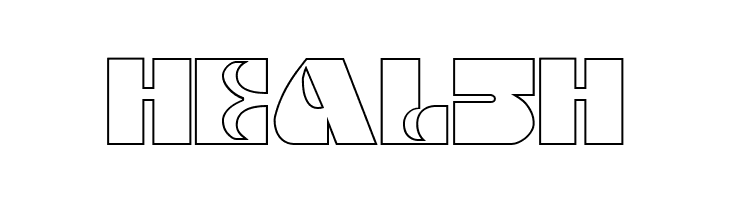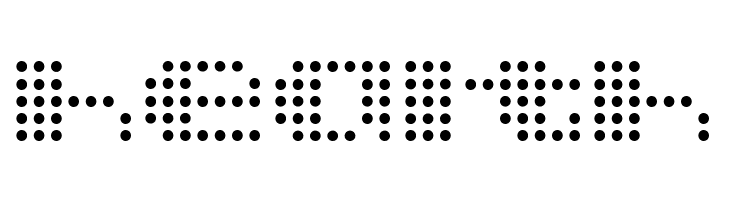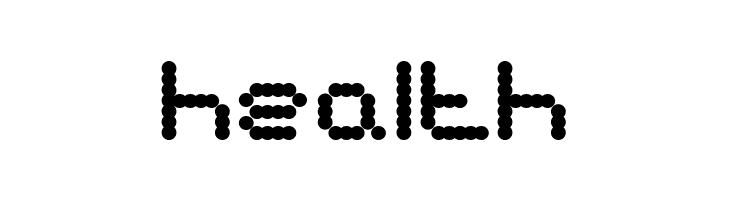
A bold pictogram dingbat font featuring diverse icons and symbols.
A display font featuring bird illustrations as characters.
Intricate vintage illustrations of people and scenes.
A pictogram font featuring animal and insect silhouettes for each character.
Hand-drawn, doodle-style font with playful illustrations.
A decorative font with medieval-themed illustrations within each character.
A collection of illustrated scenes and characters inspired by early 20th-century life, not a traditional font.
Hand-drawn, grungy arrow icons in square frames.
A bold, fragmented, and abstract decorative font with an edgy style.
A bold, shadowed font with a strong, three-dimensional appearance.
A display font made up of assorted decorative cross symbols.
Cartoon dingbat font illustrating stress-related scenarios.
A geometric, futuristic font with intersecting lines and sharp angles.
A whimsical decorative font using fish illustrations as characters.
A decorative cat-themed silhouette font.
Ornate, illustrative font featuring East Asian mythological figures.
Cartoonish, illustrative font with each glyph as a unique character drawing.
Whimsical illustrated font featuring diverse character heads and figures.
Playful pictogram font made of animal silhouettes.
A spiral-based decorative display font with varying stroke weights.
A display font made up of diverse, stylized mask illustrations.
A decorative display font made of diverse, detailed mask illustrations.
Illustrative font featuring workers and job scenes as characters.
A decorative font of unique symbols and pictograms, bold and visually impactful.
Illustrative, vintage-themed decorative font using art and craft imagery for each character.
A display font made up of various hand illustrations representing each character.
A whimsical pictogram font inspired by classic TV show scenes, featuring playful silhouettes.
A bold and expressive script font with fluid, connected strokes.
Highly decorative ornamental motif font with floral and geometric elements.
A dot matrix style font with a modern, playful appearance.